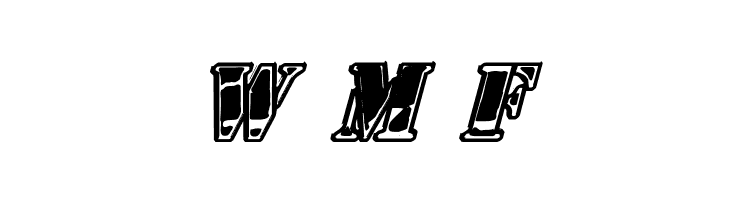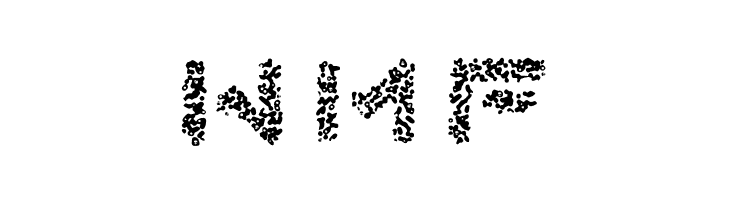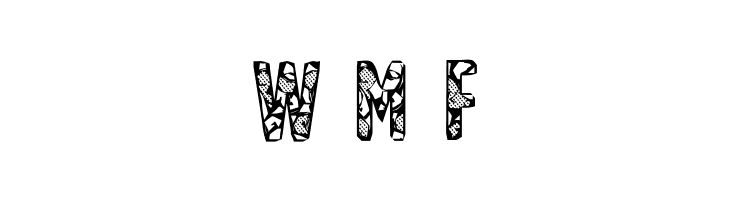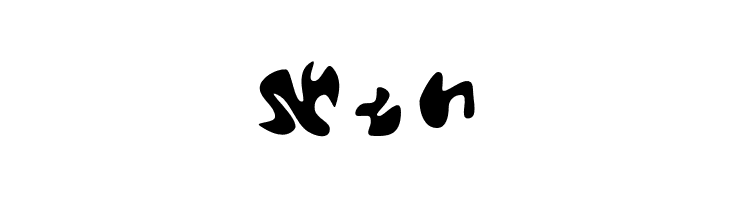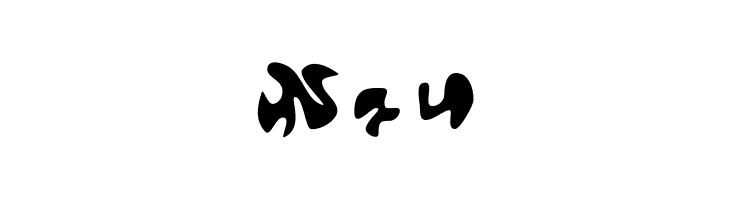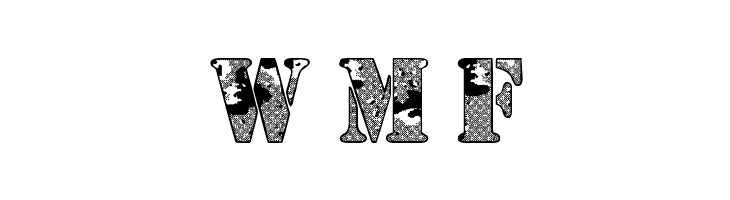
A bold, decorative font with a camouflage pattern, perfect for military-themed designs.
A bold, abstract font with fluid, camouflage-like shapes.
An abstract, artistic font with bold, irregular shapes resembling camouflage patterns.
A bold, decorative font with a desert camouflage pattern.
Bold, italic font with camouflage pattern and thick outlines.
A bold, geometric font with intricate dazzle patterns in each character.
A fragmented, pixelated font with a modern, edgy style.
A bold, abstract font with organic, fluid shapes and a playful, chaotic style.